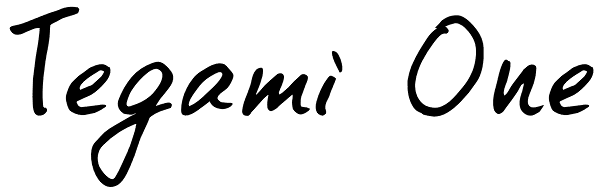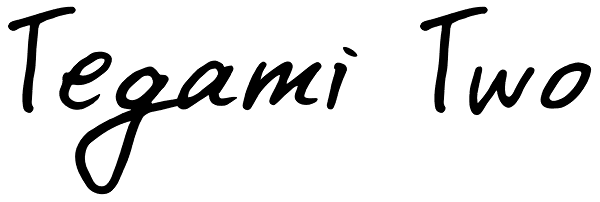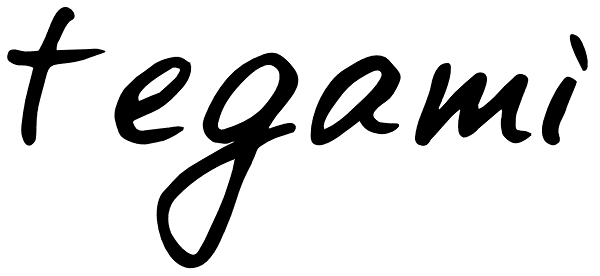
Tegami
This font is from the handwriting of Kaori Onoda. The font is named after the Japanese word tegami which means letter. This is because the writing was taken from a letter she wrote to me. This includes 3 fonts because it was originally designed to...
Tegami One
Tegami Two
Tegami